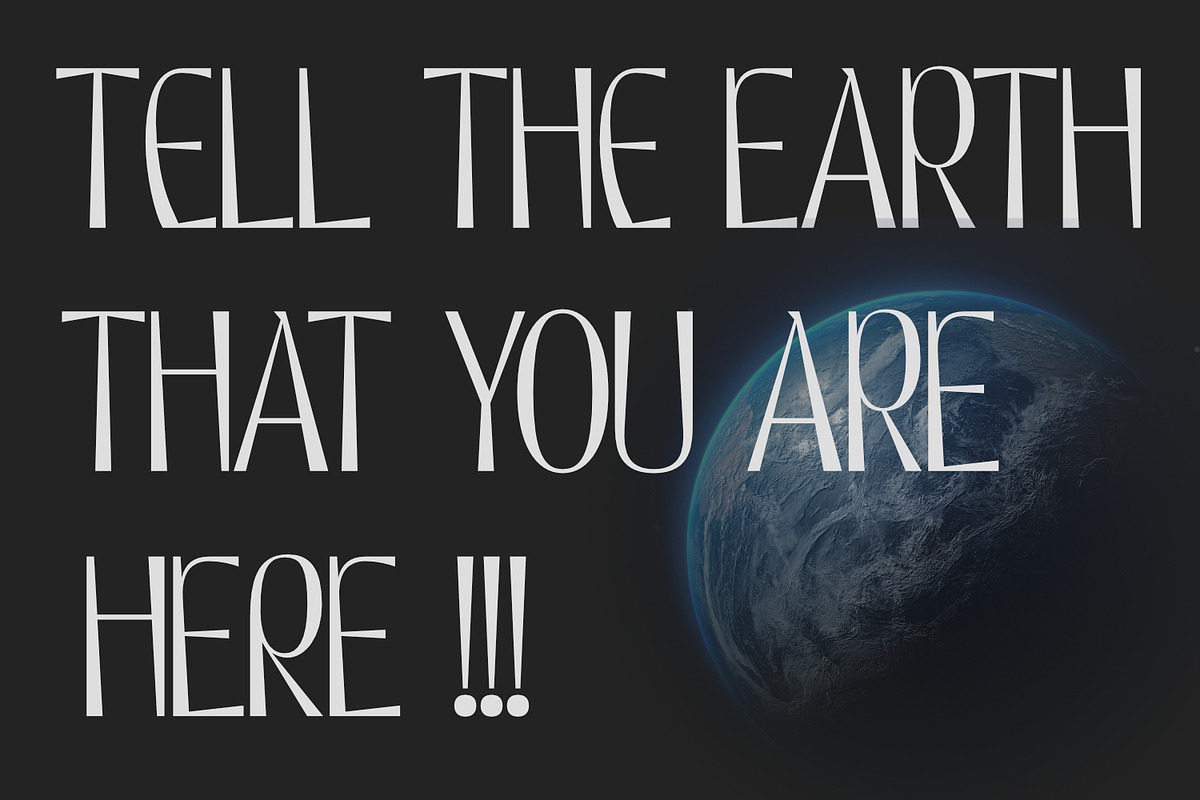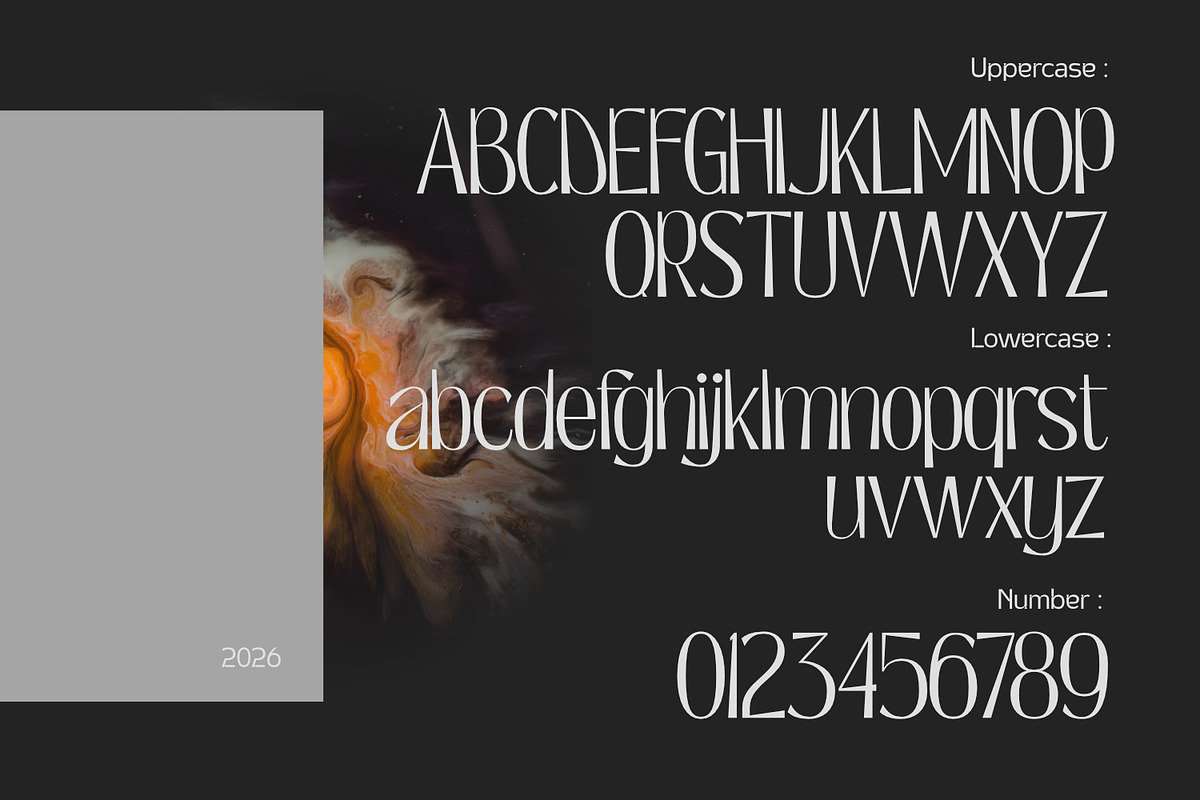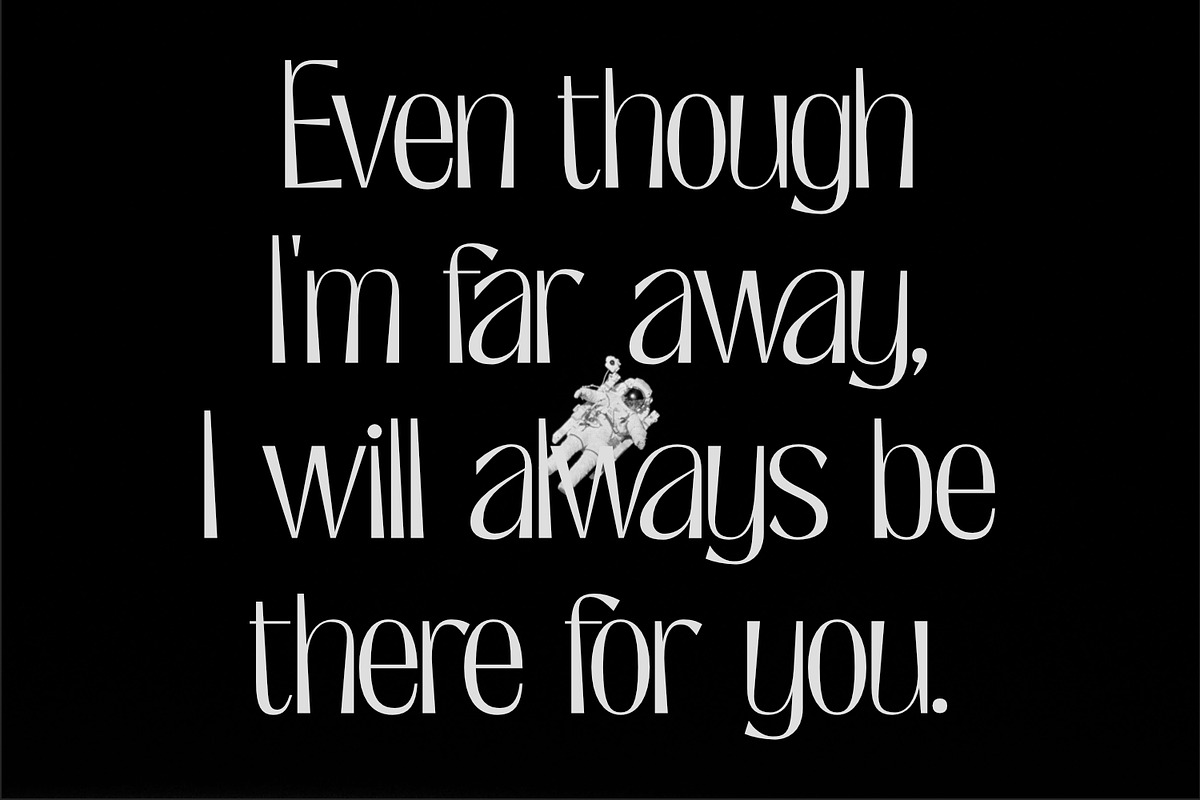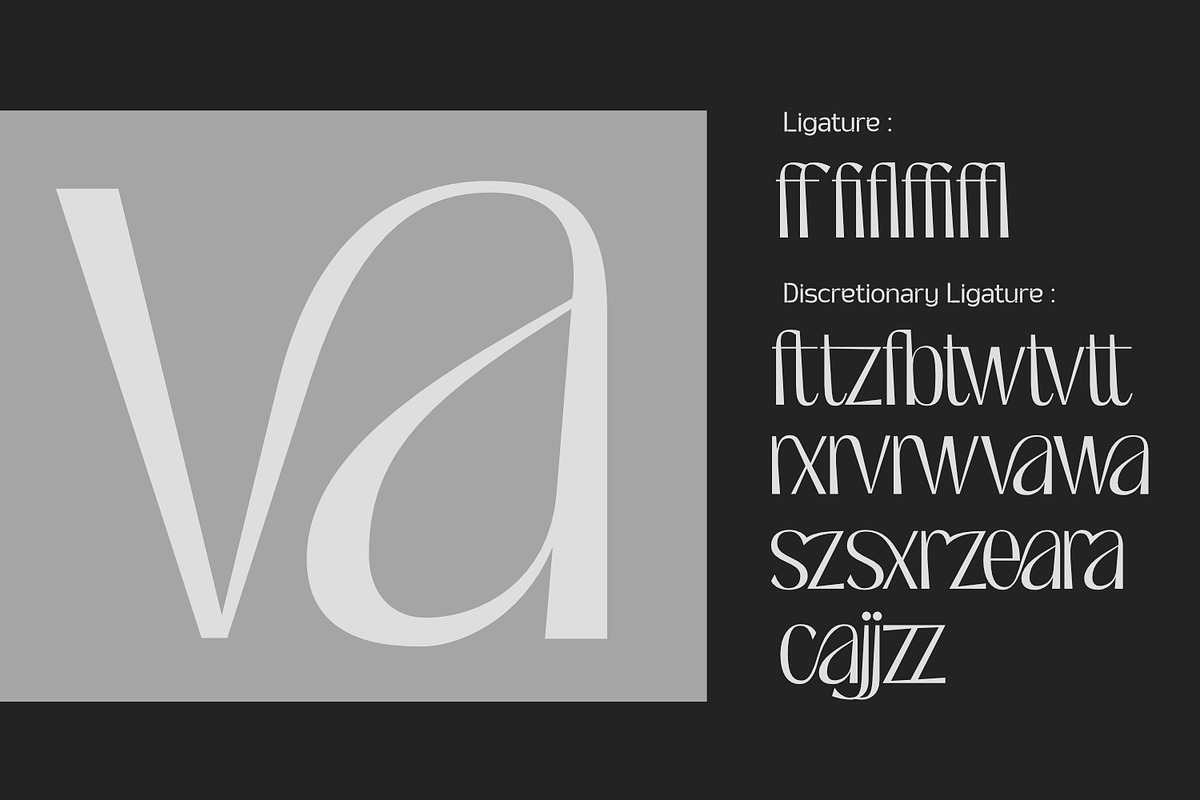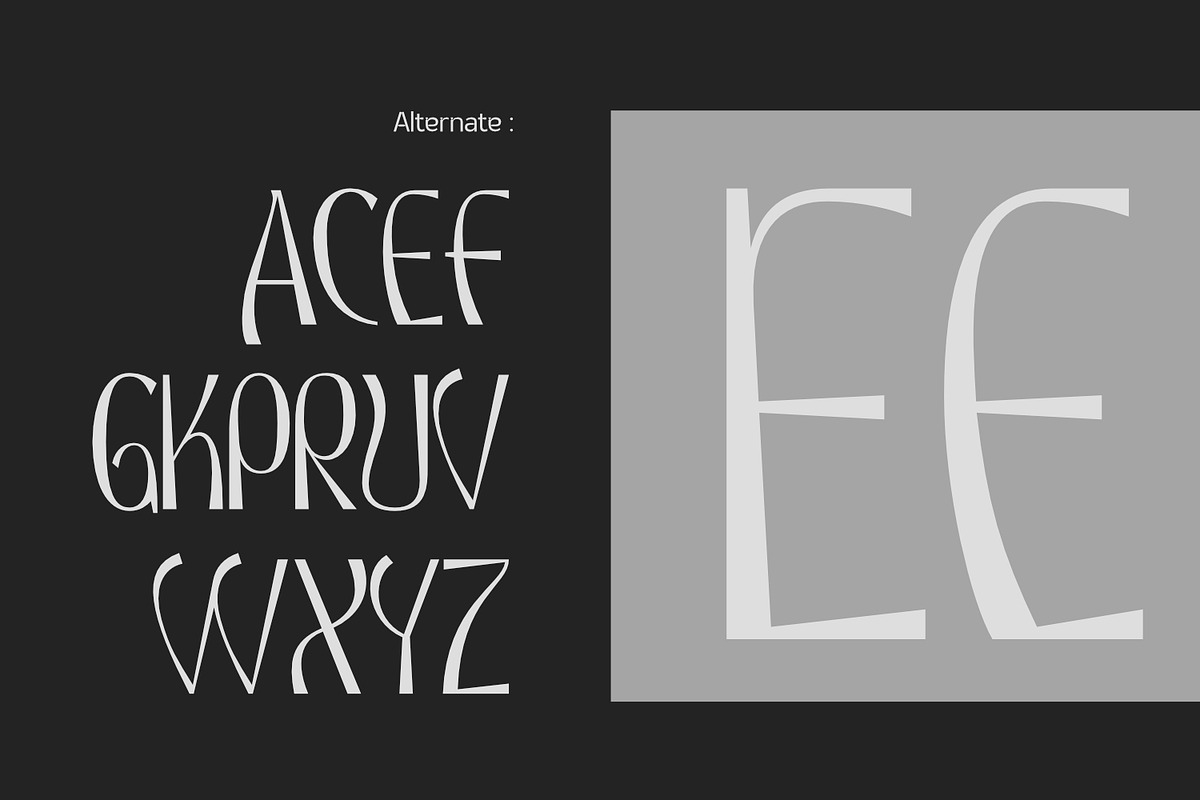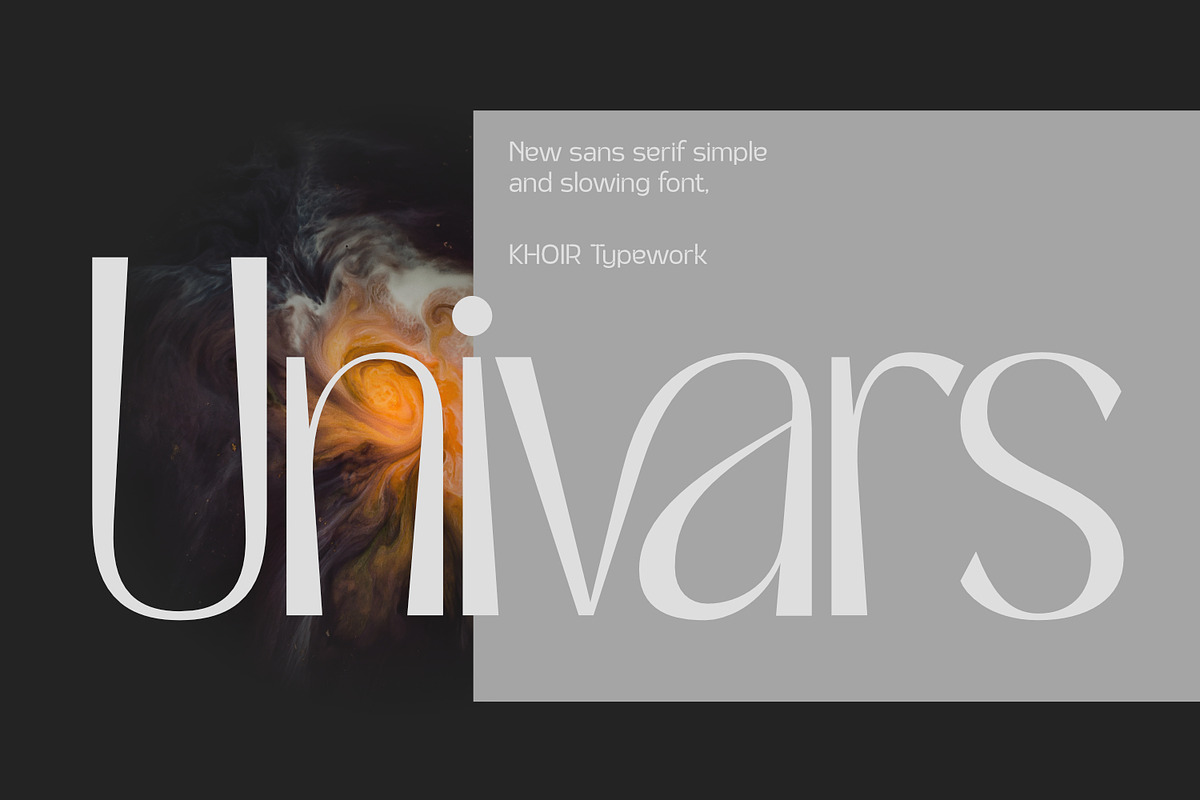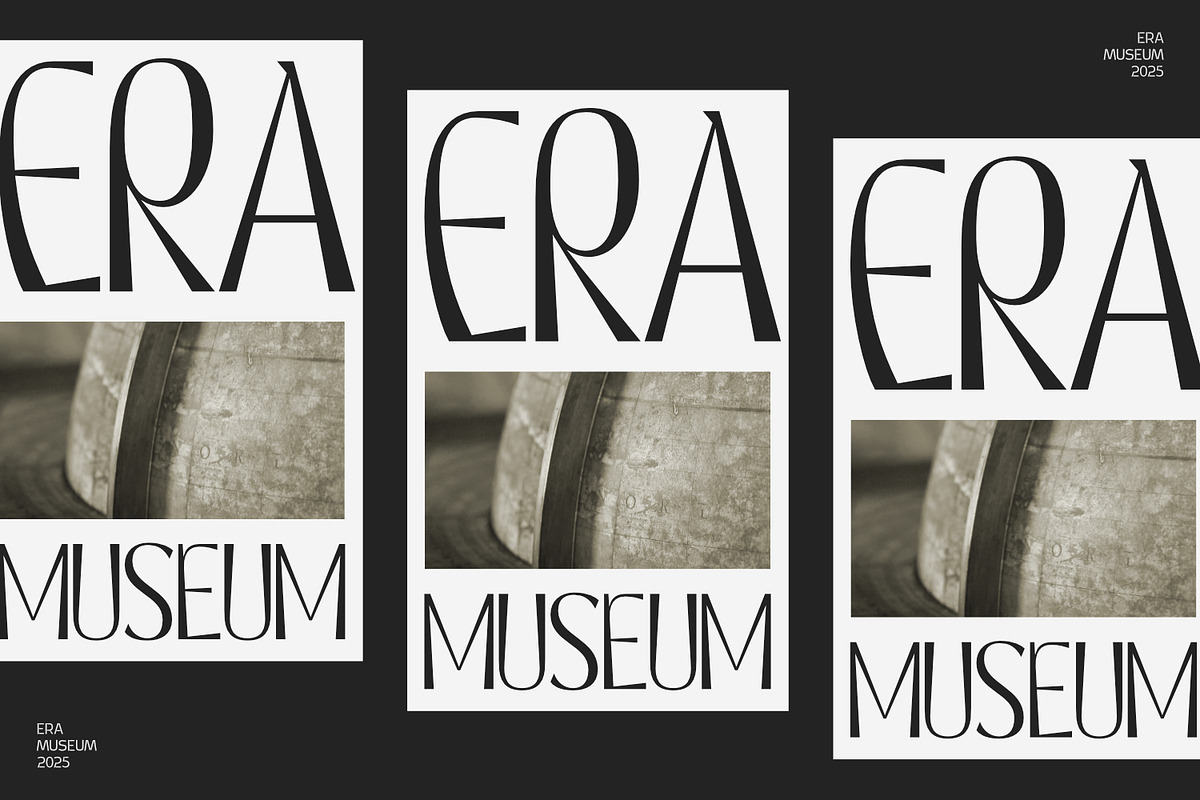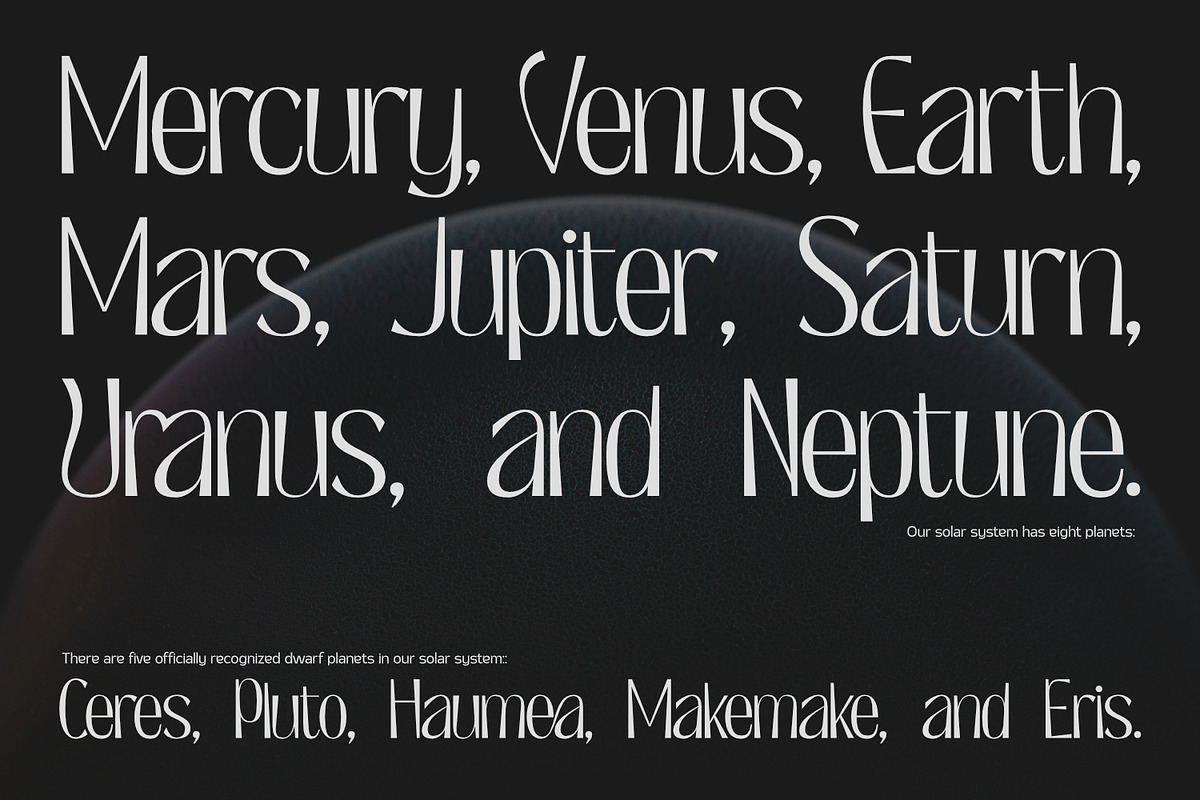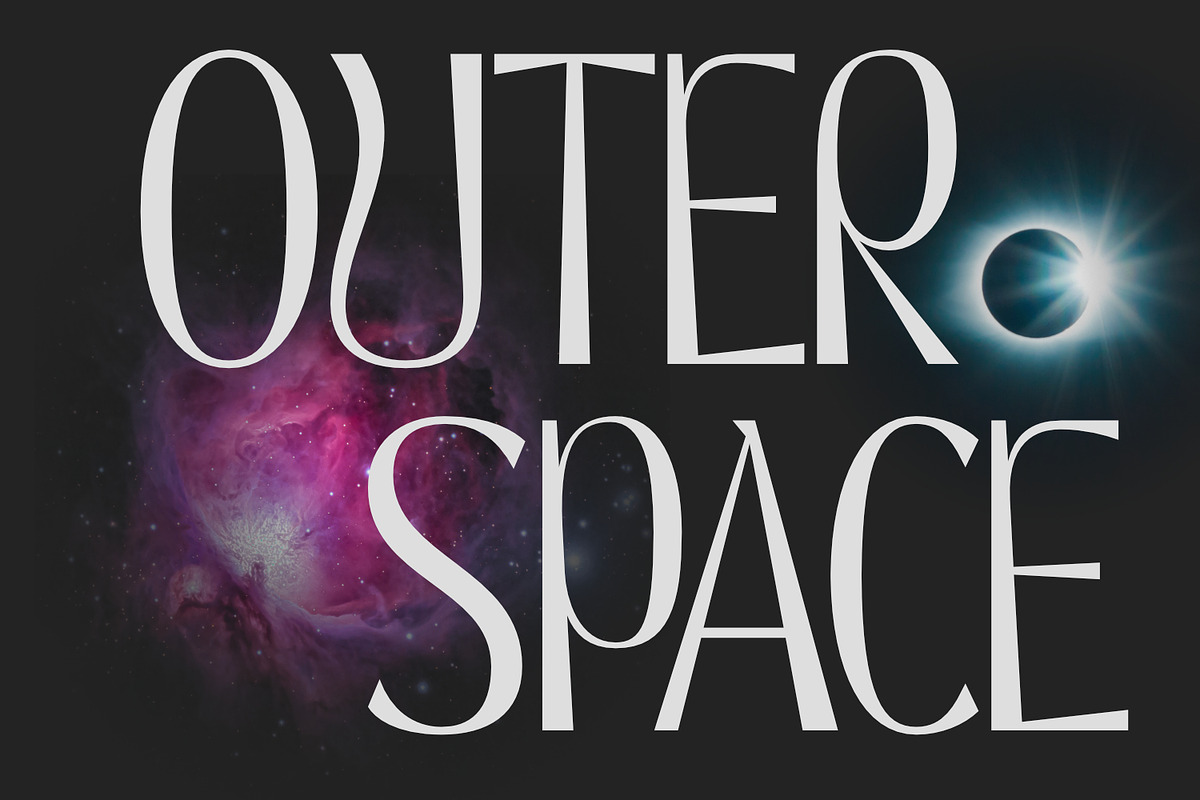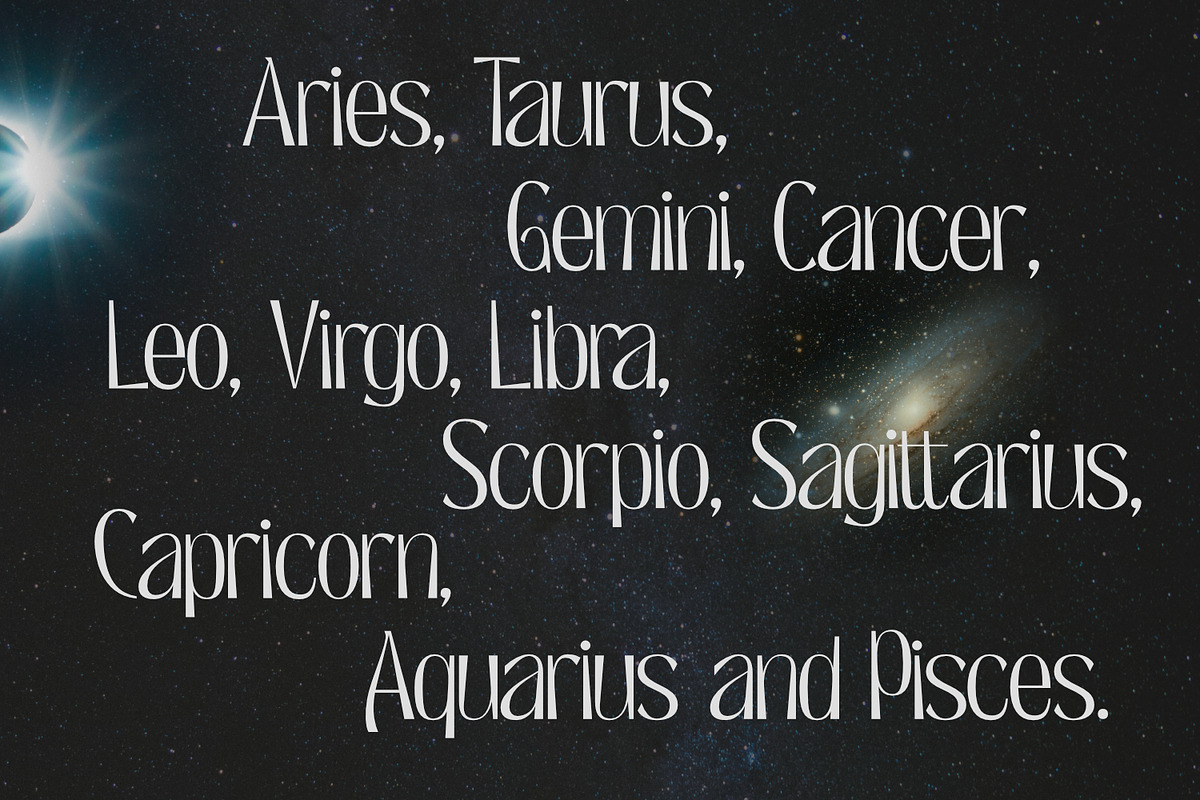
Univars - Sans Serif Simple
This thin, light, and clean sans serif font makes it appear to float in space. The enlarged strokes at the ends make it feel lighter, and the thick, thin lines are contrasting yet soft, giving the impression of flowing smoothly into each other.
Univars features several unique, twisting letterforms reminiscent of galaxies in space. It also features several ligatures, making it suitable for space-themed applications. Univars is also suitable for use in branding, book covers, packaging, titles, visual identities, and much more.
- Ligauture